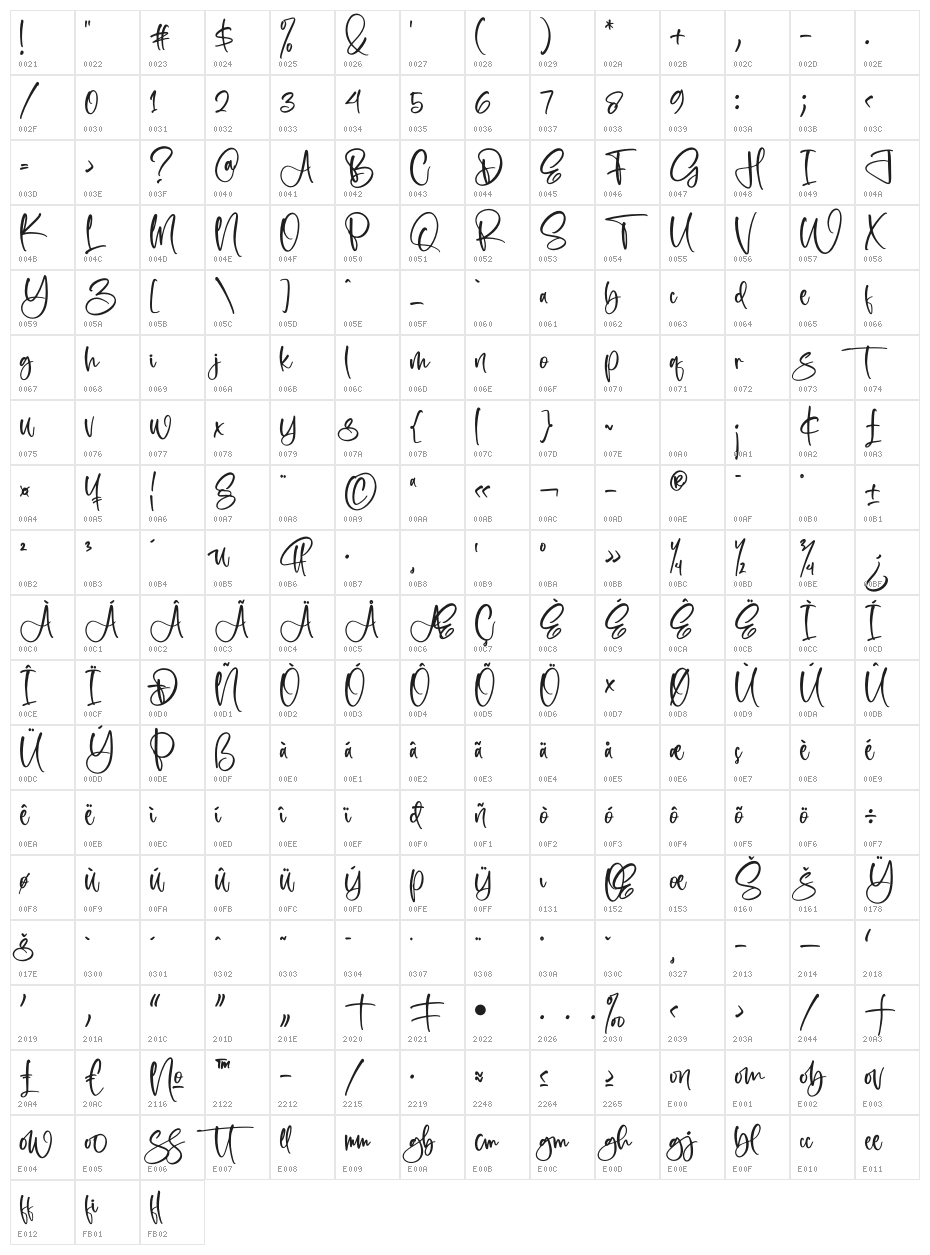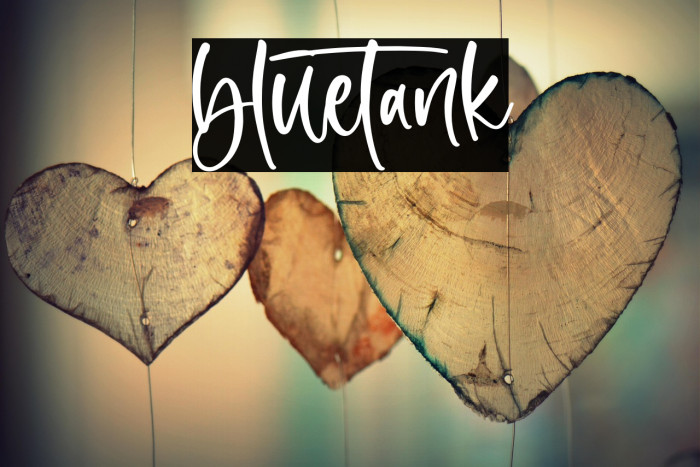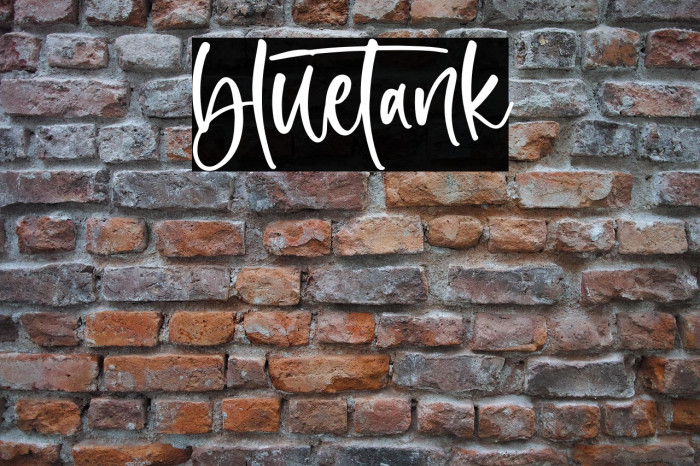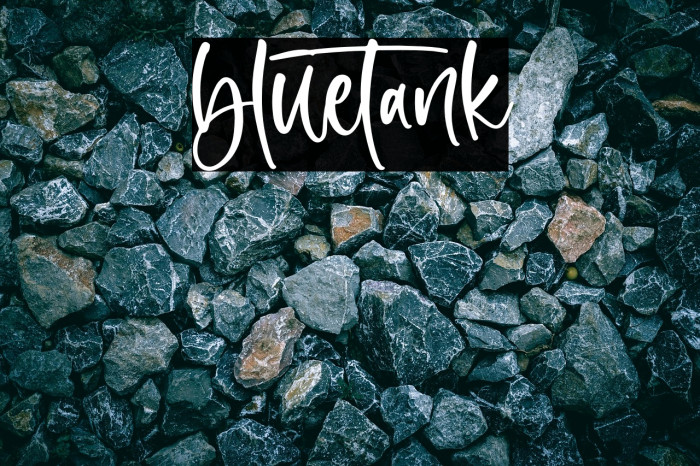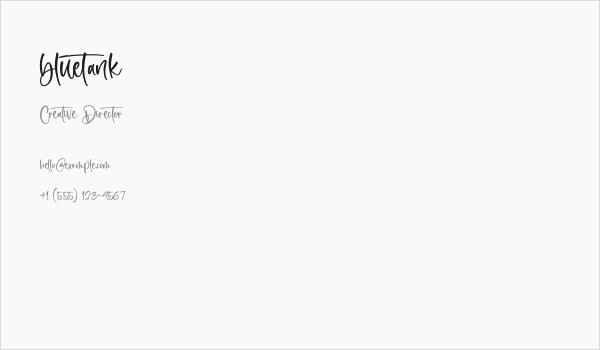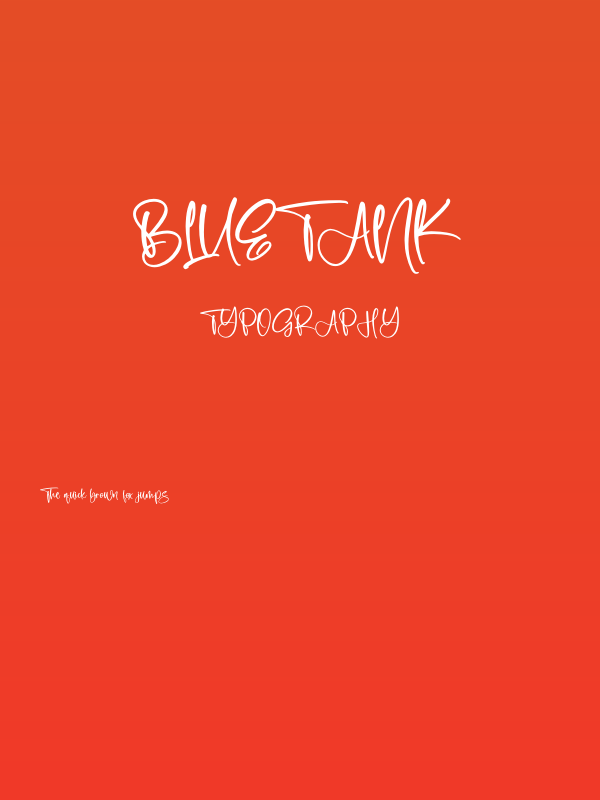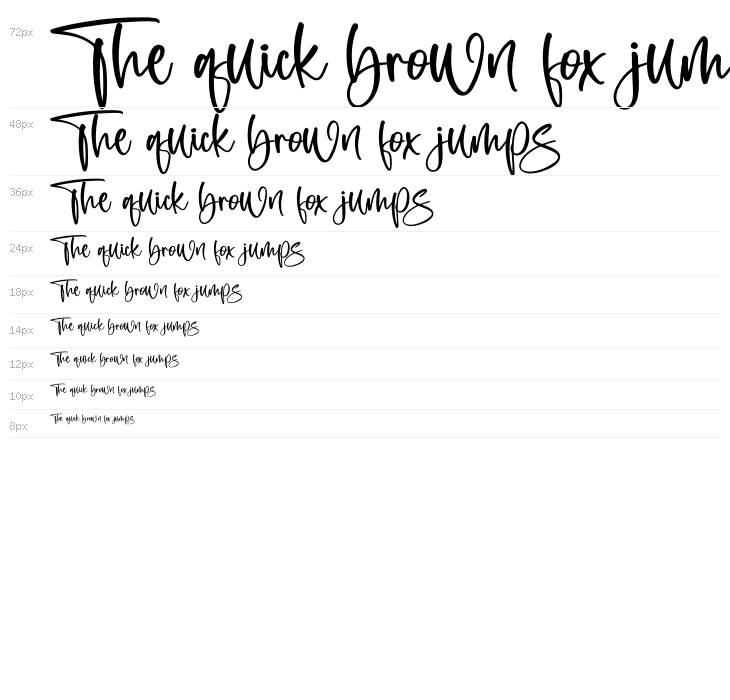
bluetank Font
bluetank Description
This font exudes a lively and expressive handwritten style, characterized by its fluid and dynamic strokes. The letters are crafted with a playful and artistic flair, featuring varying line thicknesses that add a sense of movement and energy. The uppercase letters are bold and prominent, while the lowercase letters maintain a consistent flow, enhancing readability. Numbers and special characters are designed to complement the overall aesthetic, making them suitable for creative and informal applications. The font's unique style makes it ideal for projects that require a personal touch or a sense of individuality.
| Use Case | Logos, Headlines, Creative projects |
| Proposed Projects | Ideal for greeting cards, invitations, personal branding, and creative social media graphics. |